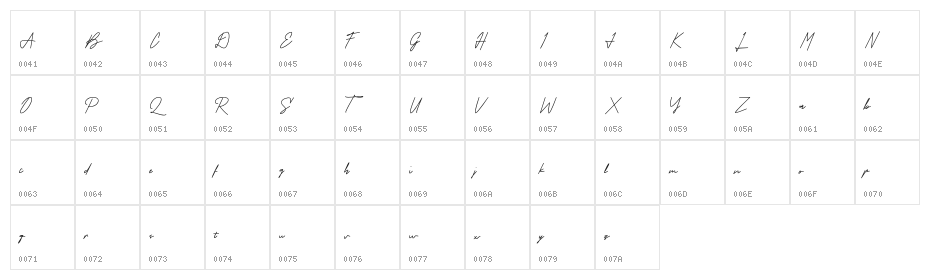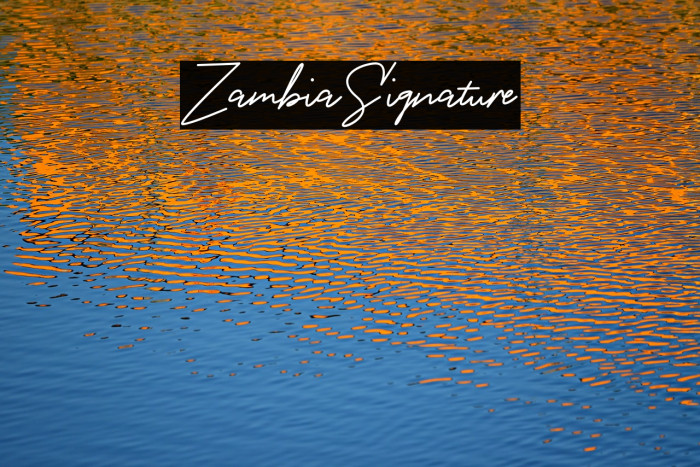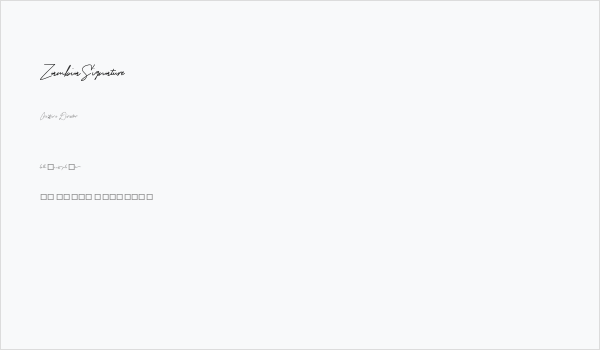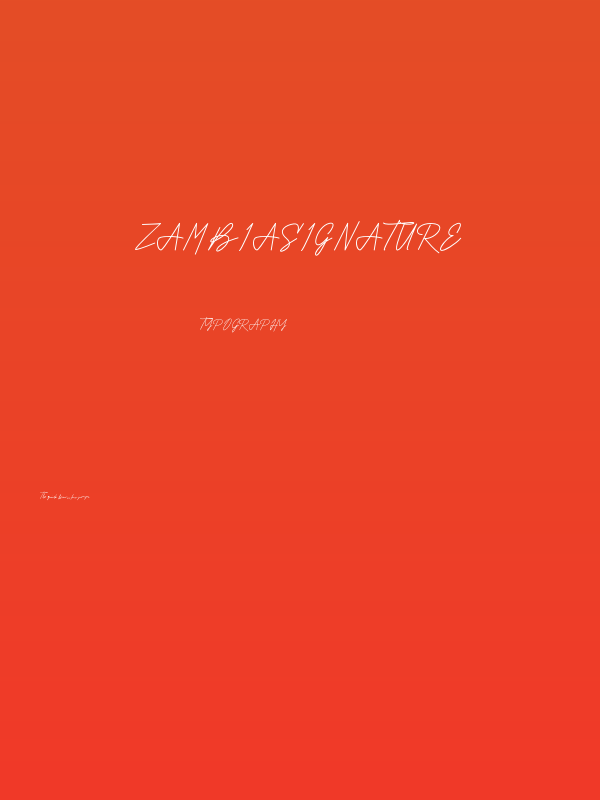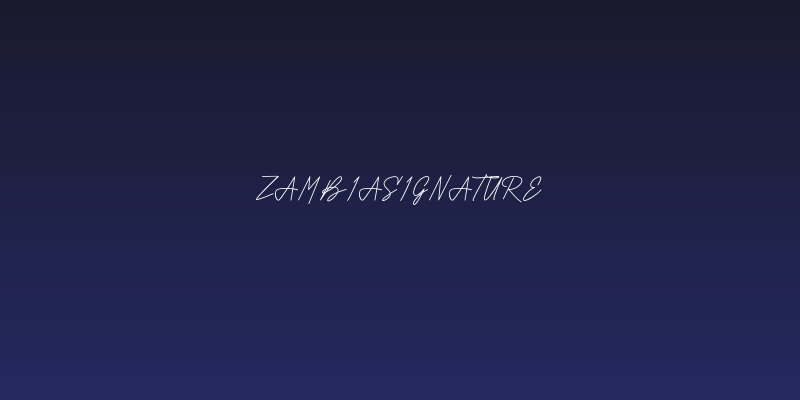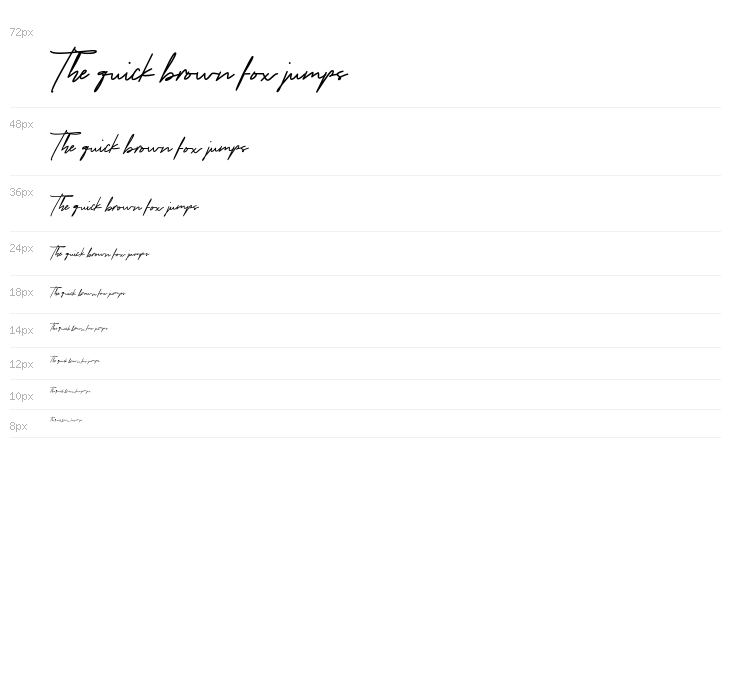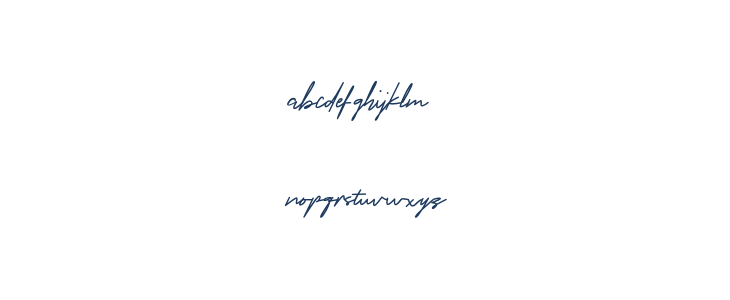
ZambiaSignature Font
ZambiaSignature Description
This font features an elegant, flowing script style with a handwritten appearance. The uppercase letters are tall and slender, with a slight slant that adds a sense of movement and grace. The lowercase letters are more compact, maintaining the same slant and fluidity. The strokes are thin and delicate, giving the font a refined and sophisticated look. The spacing between characters is consistent, allowing for easy readability while maintaining the cursive aesthetic. This font does not include special characters, focusing instead on the alphabet in both uppercase and lowercase forms.
| Proposed Projects | Ideal for wedding invitations, personal branding, elegant logos, and greeting cards. |